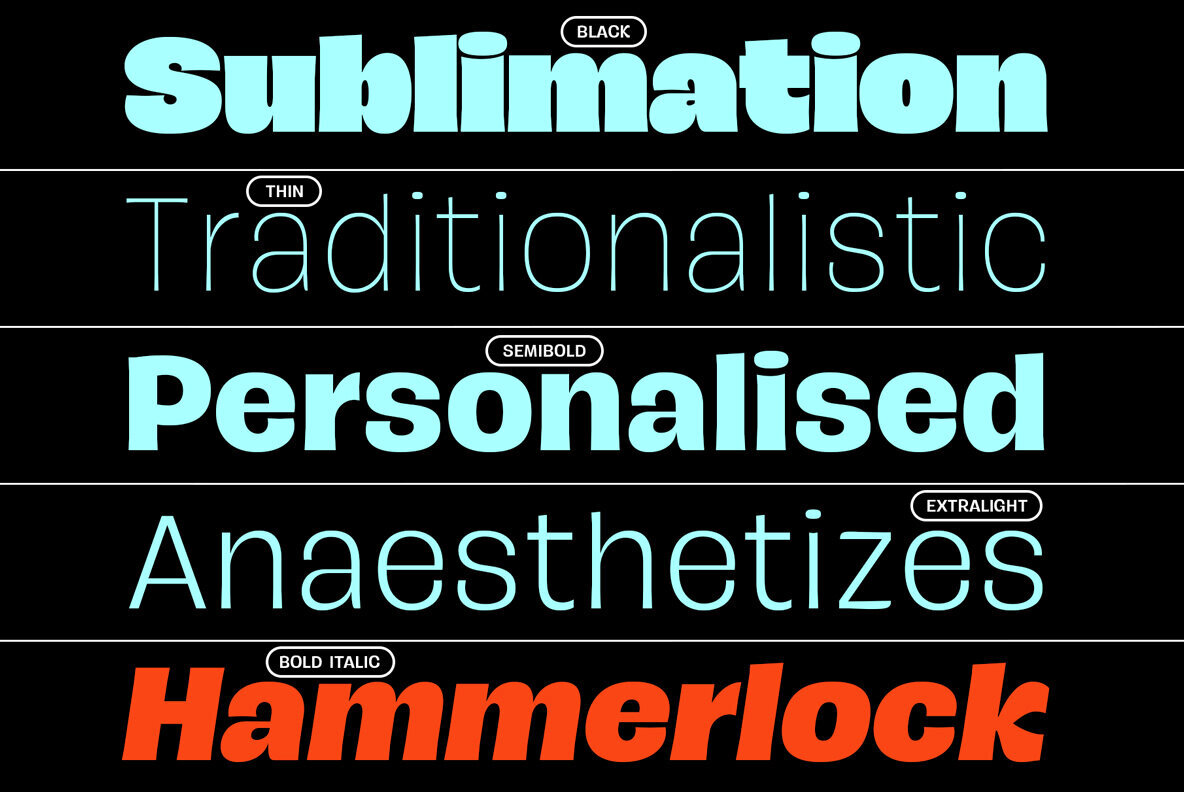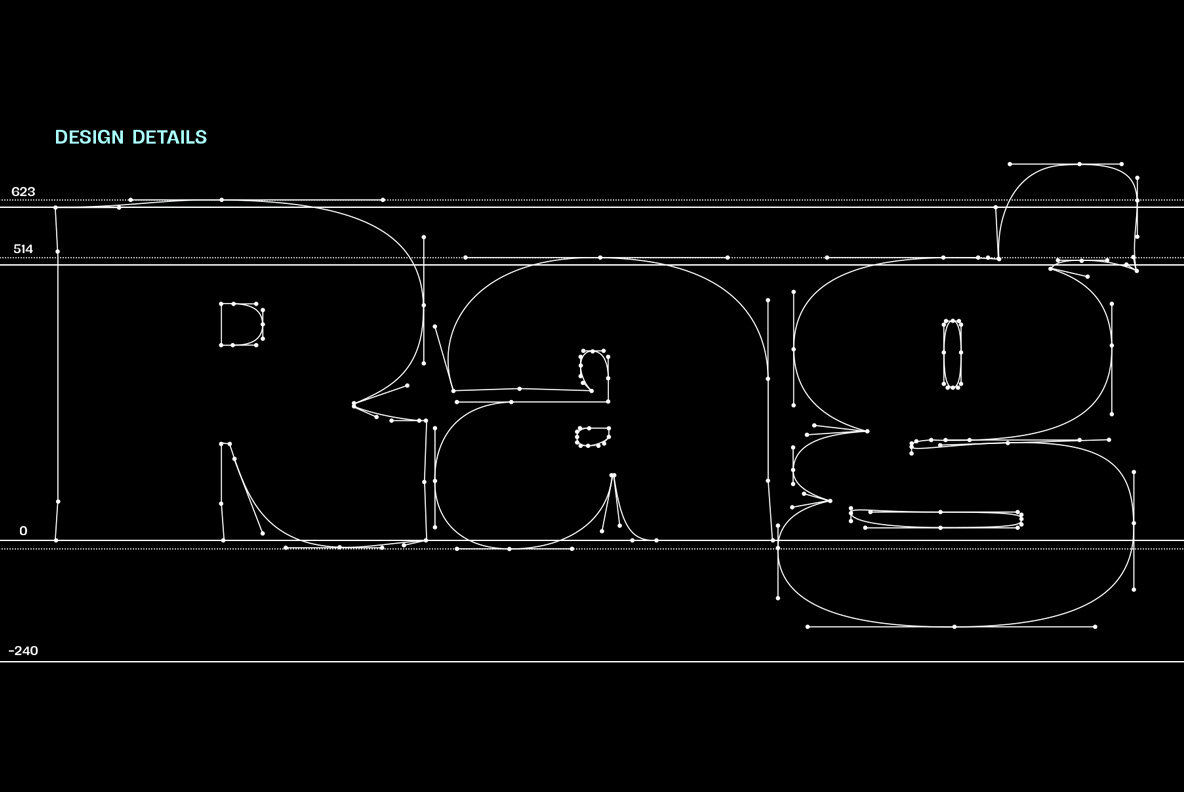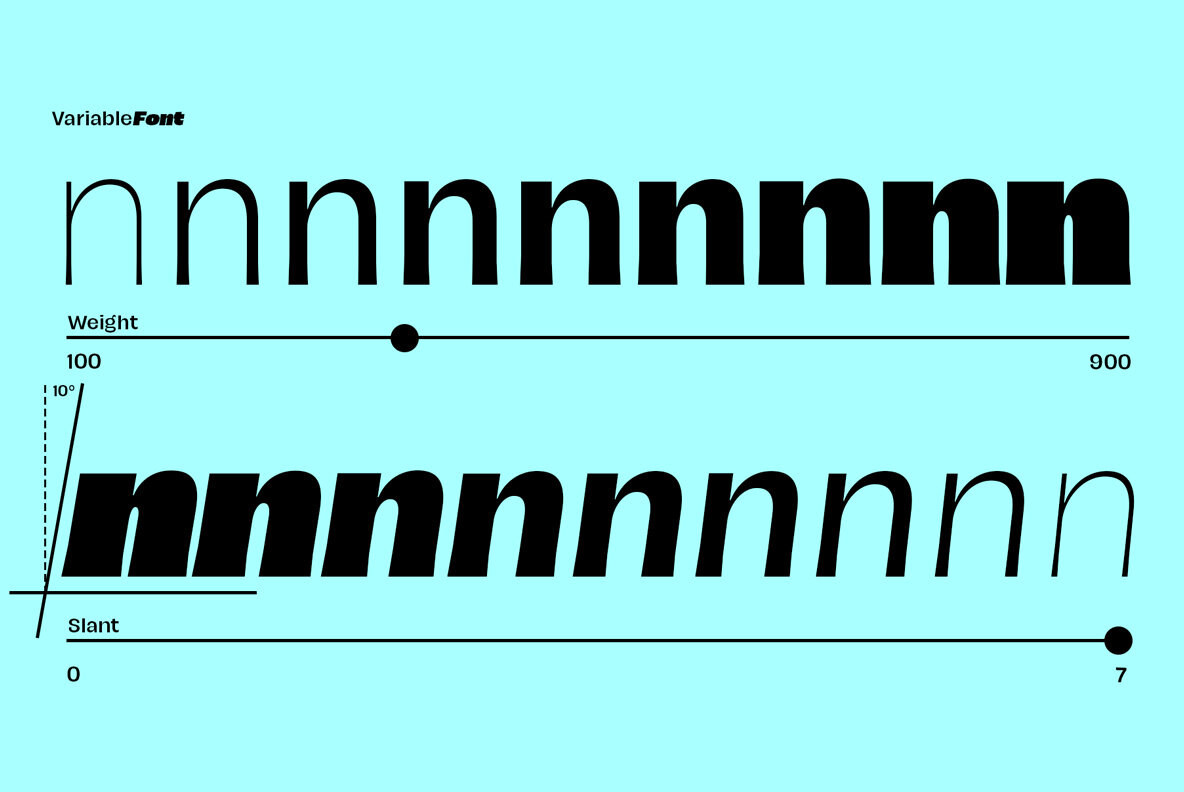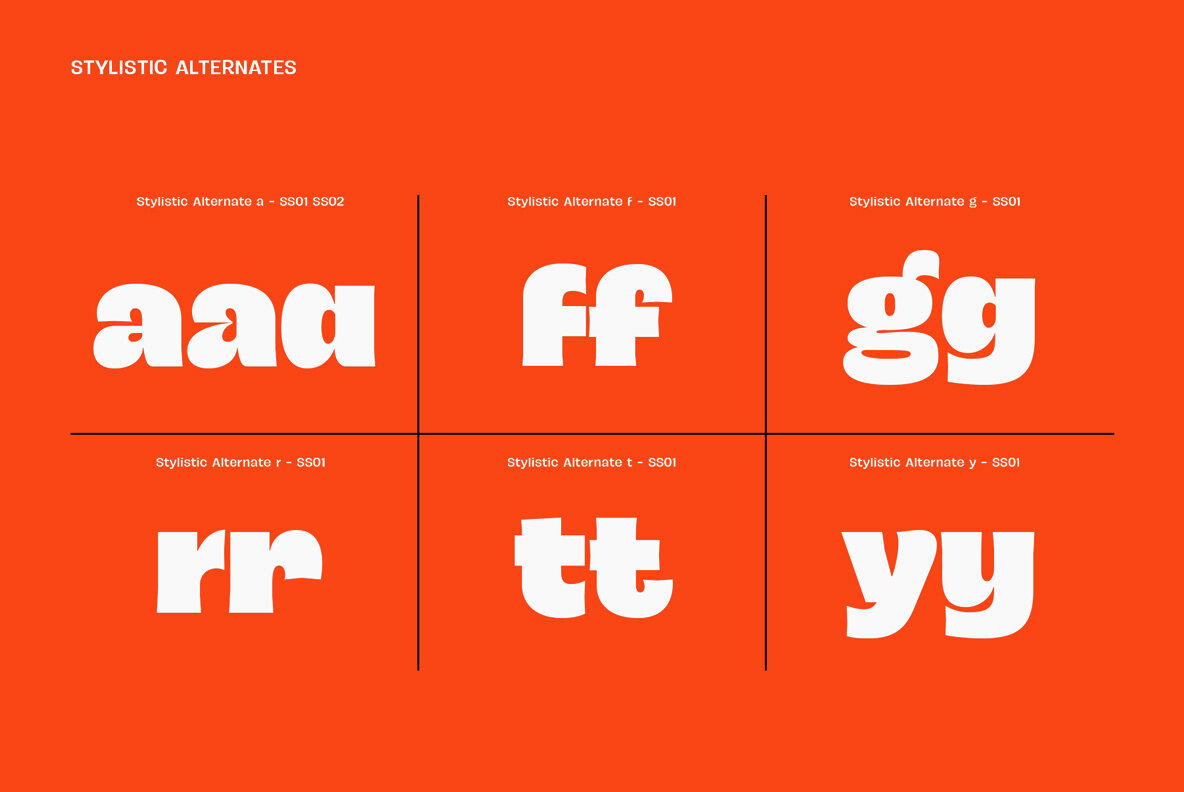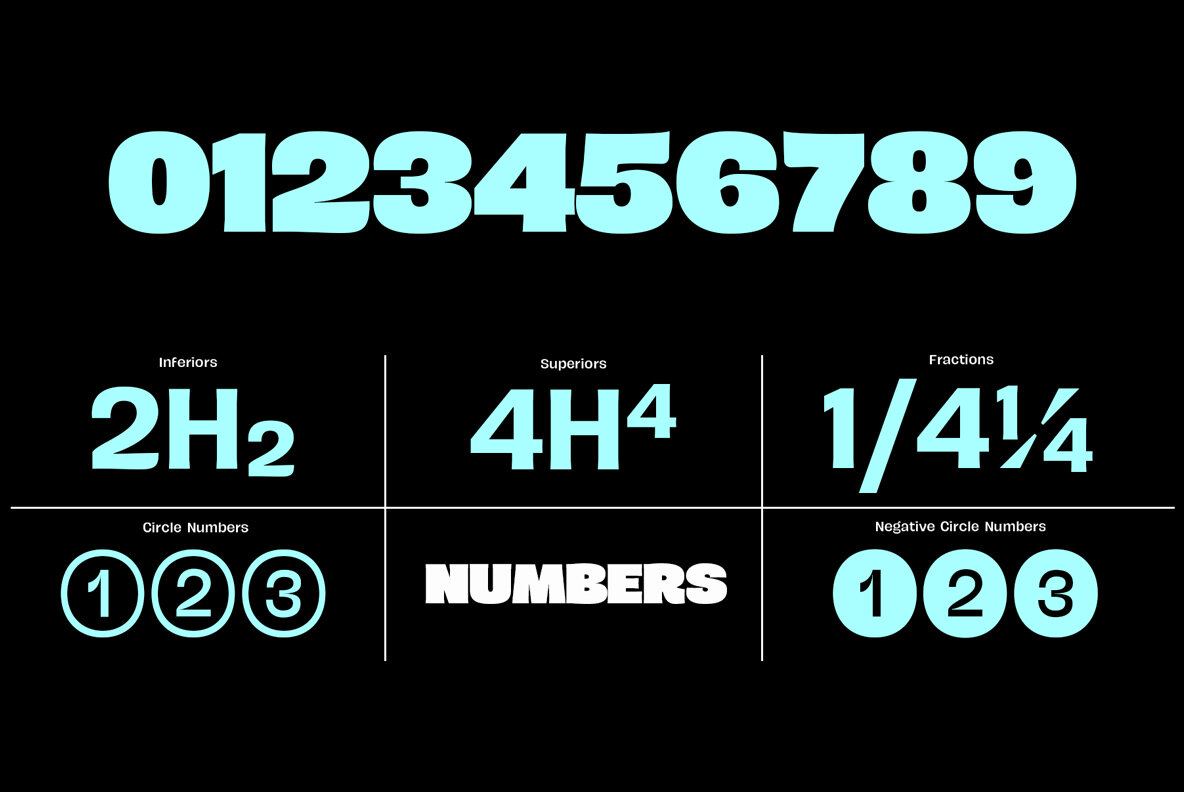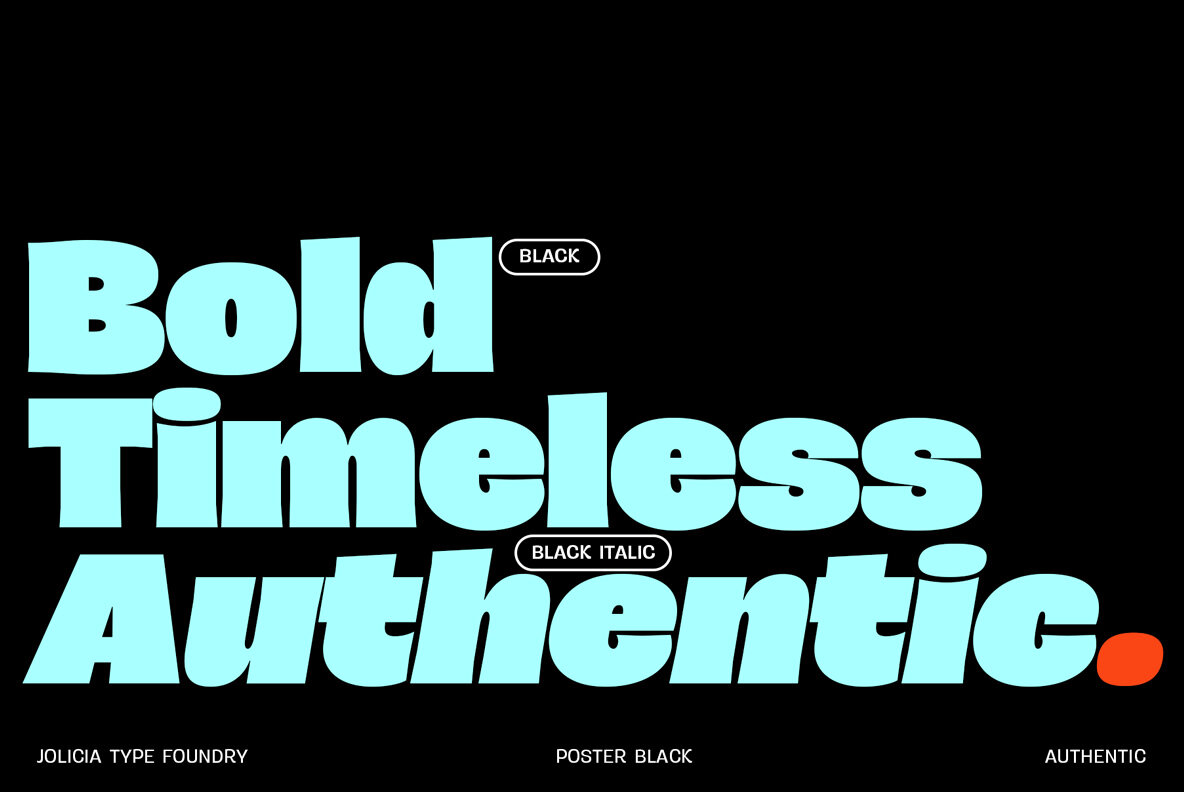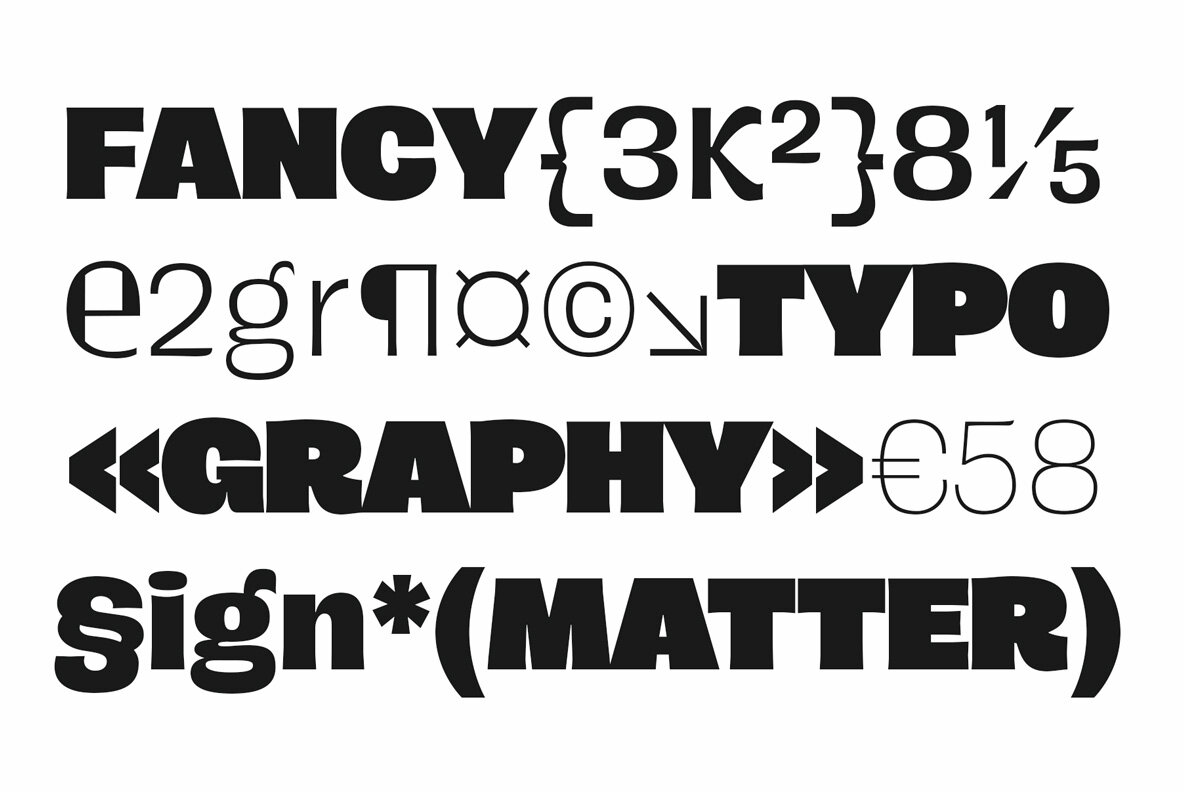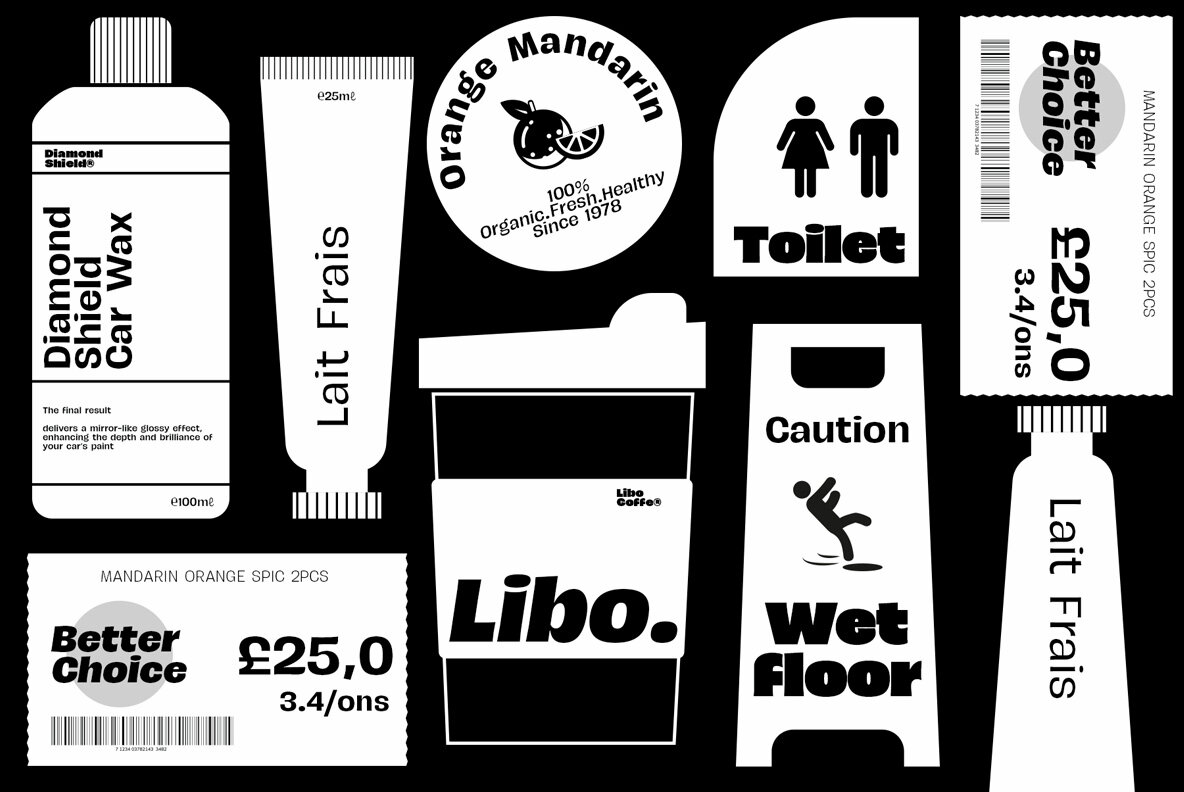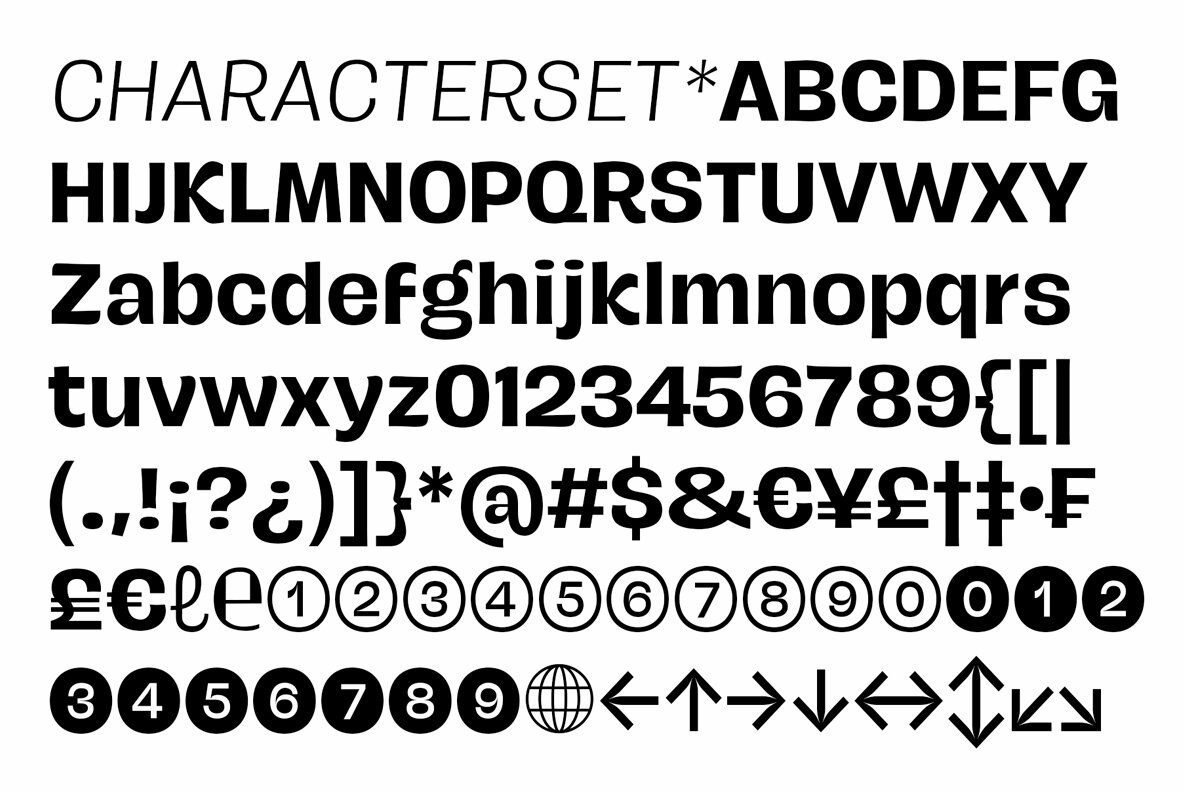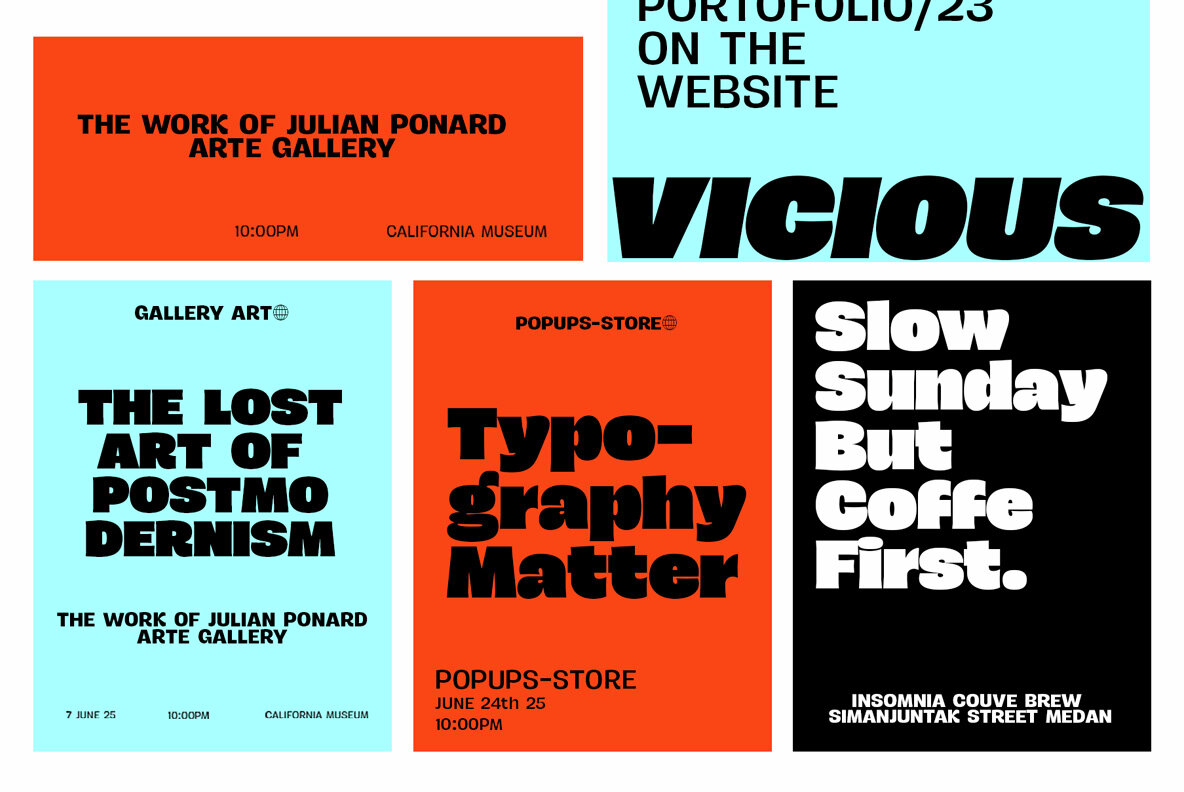
JT Remillo Font
JT Remillo is a humanist sans-serif typeface that blends organic elegance with high readability. Featuring a total of 18 styles plus 1 variable font, JT Remillo comes in Upright and Italic versions, with a 10-degree slant, adding a dynamic touch to its typography. The Black style of JT Remillo is perfect for headings, delivering a bold and strong presence. With a balance of humanist forms and visual clarity, this typeface is ideal for a wide range of design projects, from branding and editorial design to digital interfaces.